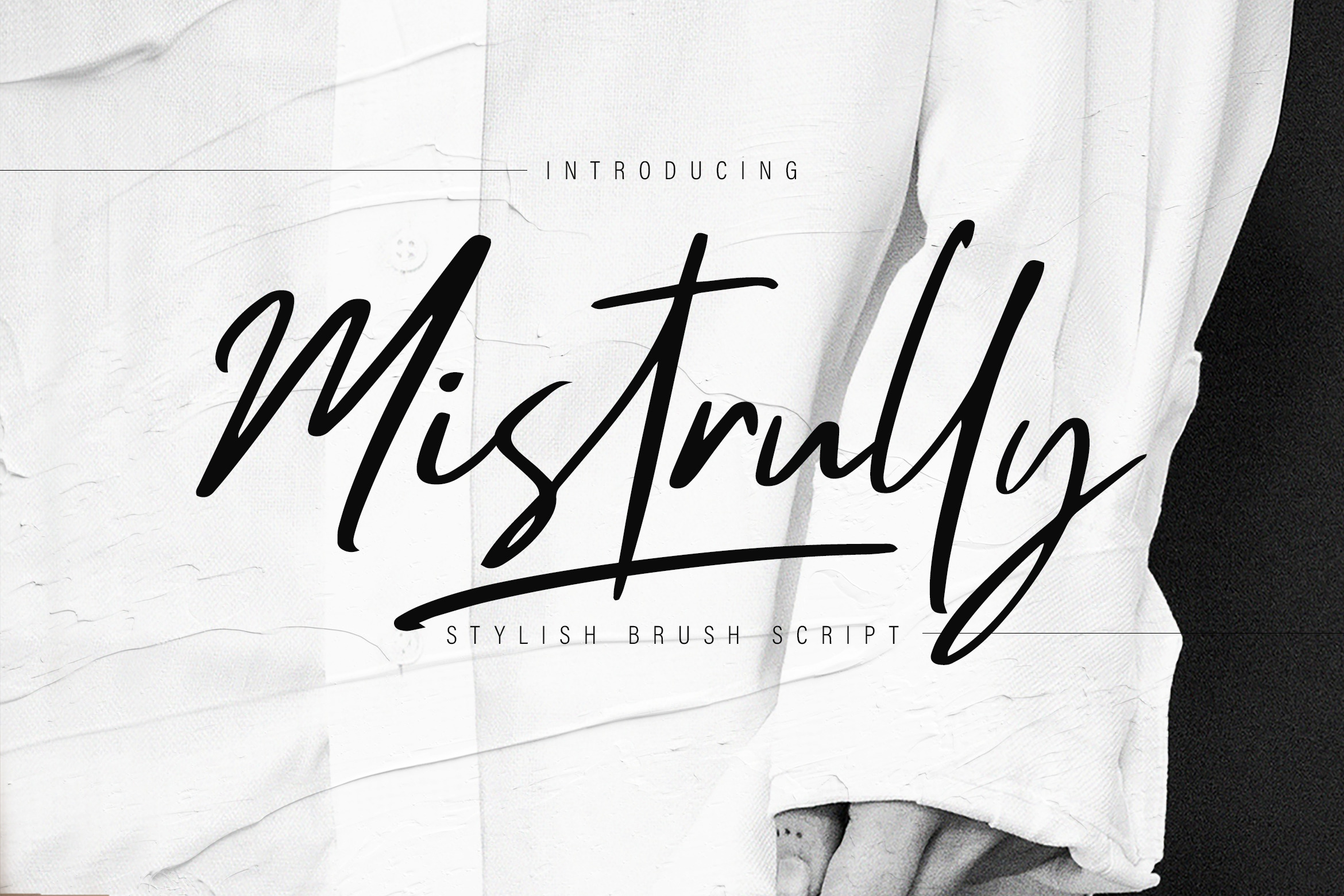
Mistrully Brush Business Font
Mistrully is fashion stylish brush script which made from natural handwriting with special swashes for make your project looks amazing.
Mistrully is perfect for branding projects, logo, wedding designs, social media posts, advertisements, product packaging, product designs, label, photography, watermark, invitation, stationery and any projects that need handwriting taste.